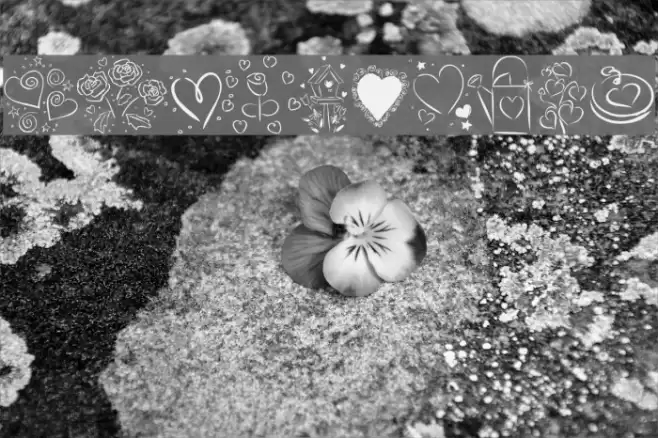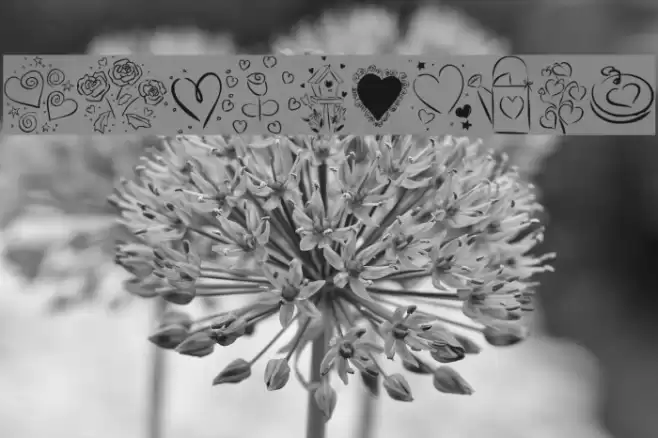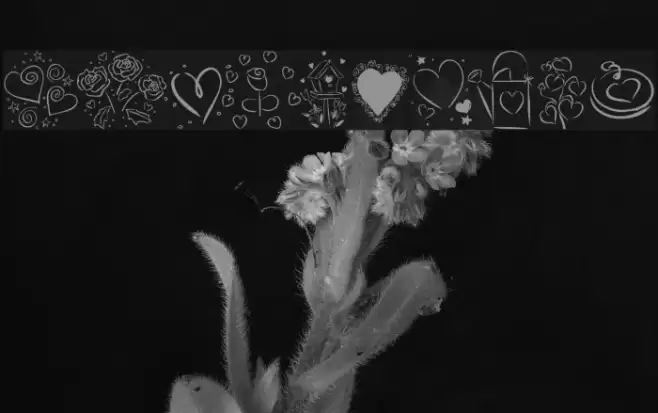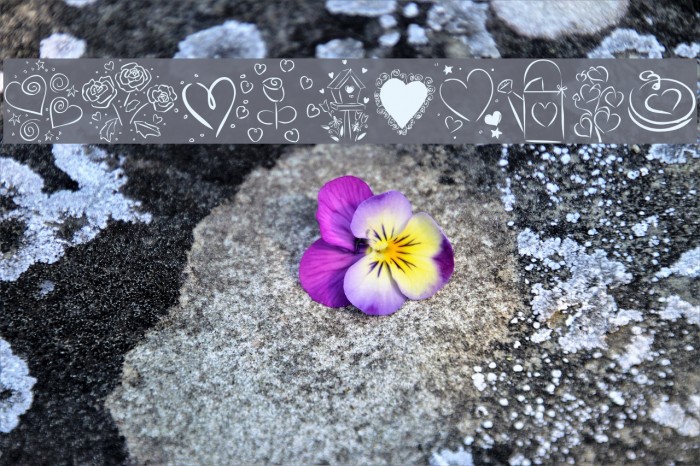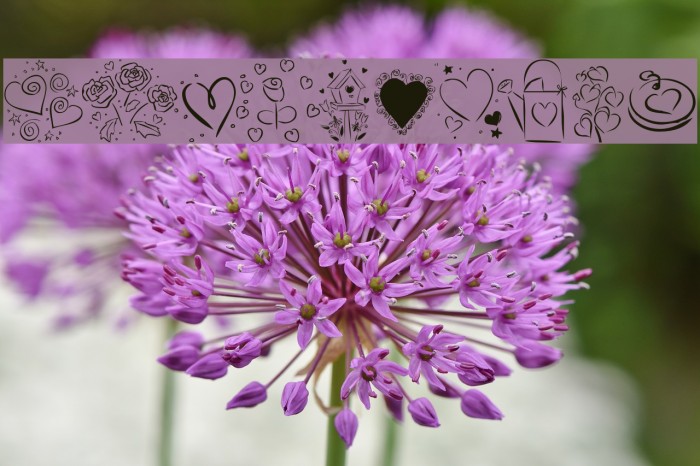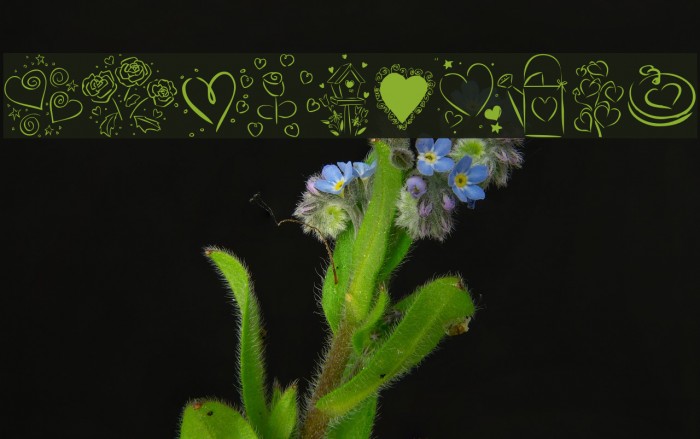
KR Valentines 2006 Font
KR Valentines 2006 Description
This is not a valid font. The image contains decorative elements and symbols related to Valentine's Day, such as hearts, roses, and other romantic motifs. These elements are more illustrative and decorative rather than a structured typeface. The image lacks the typical characteristics of a font, such as consistent letterforms and spacing, making it unsuitable for standard text applications.
The image contains decorative Valentine's Day motifs, not a valid font from Valentine fonts.
- Proposed Projects: This set of decorative elements could be used for Valentine's Day cards, romantic event invitations, or themed graphic design projects.
- Use Case: Decorative elements for themed designs.